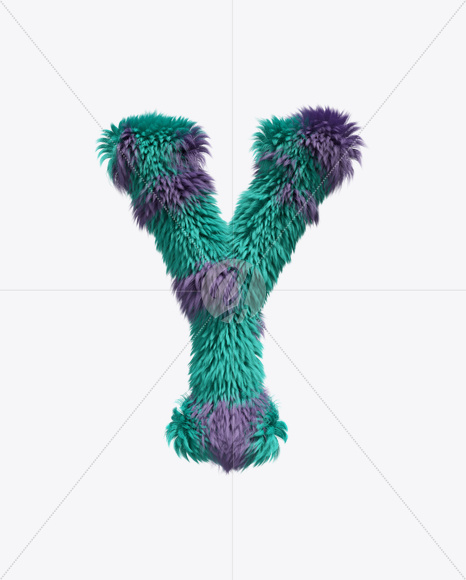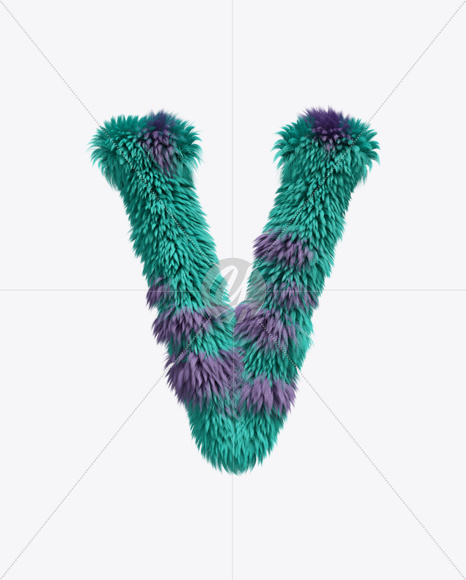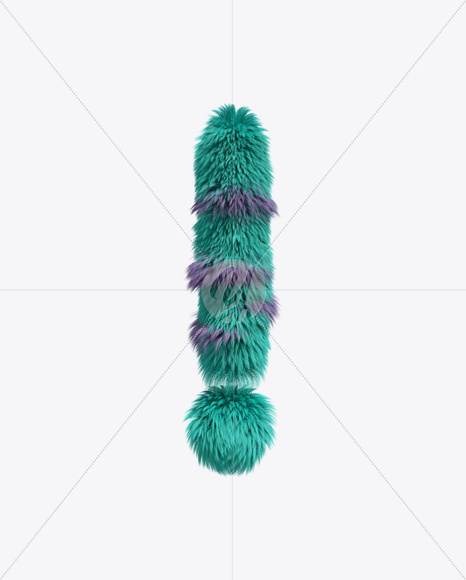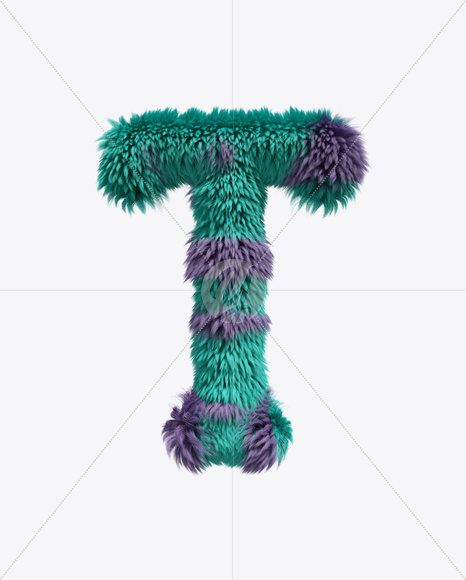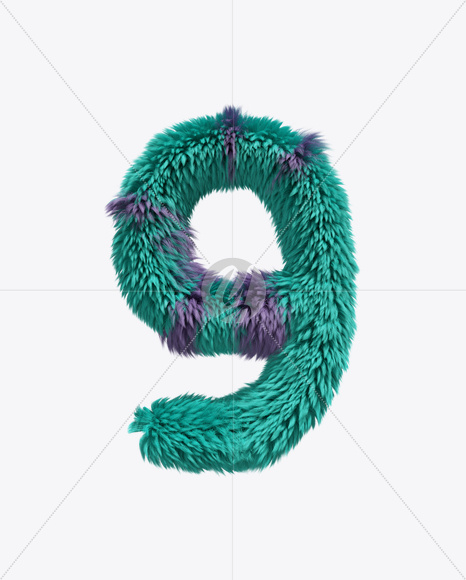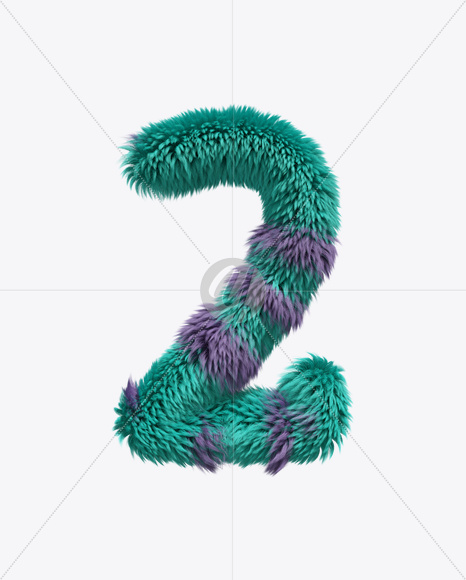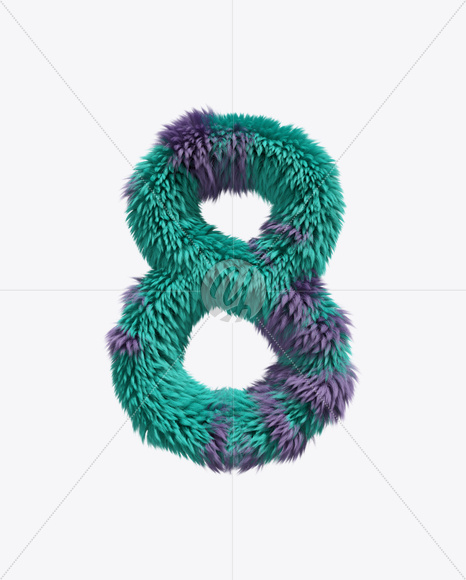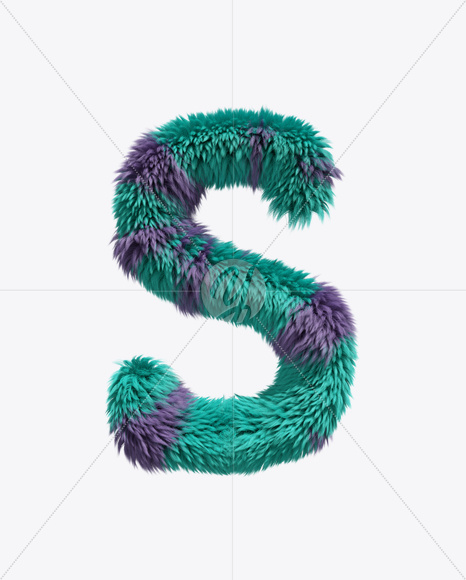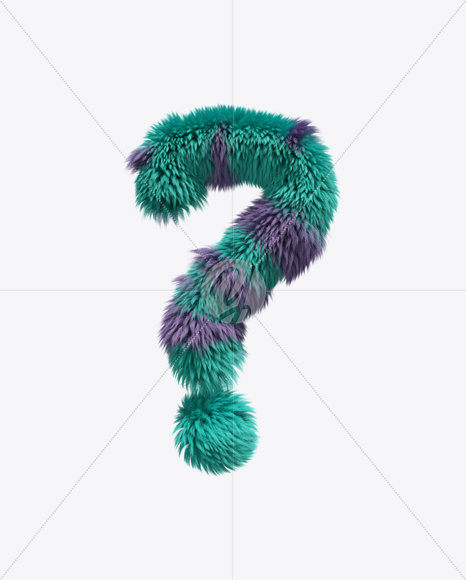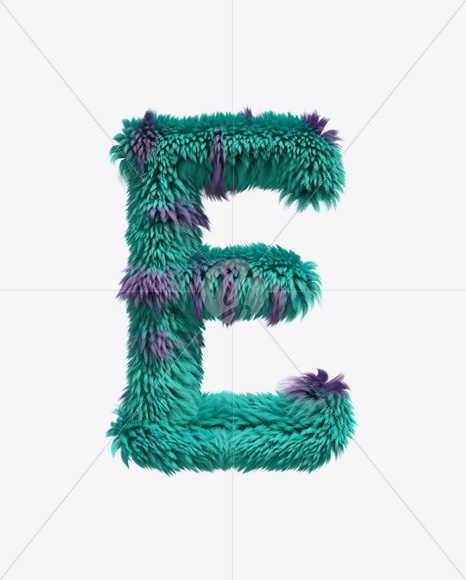
I wanna hug that monster!
Sully font is something that you would like to use writing on your walls! It’s not that scary at all. Vice versa- the monster whose hair we got was very friendly and was happy to give us some of his hair. He said that it will grow back anyway!